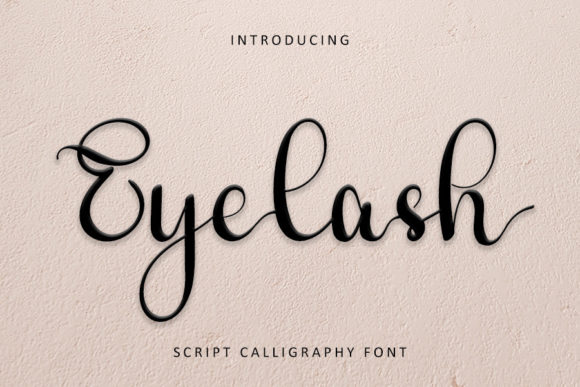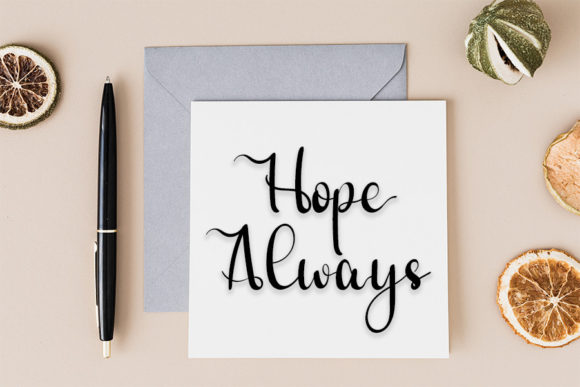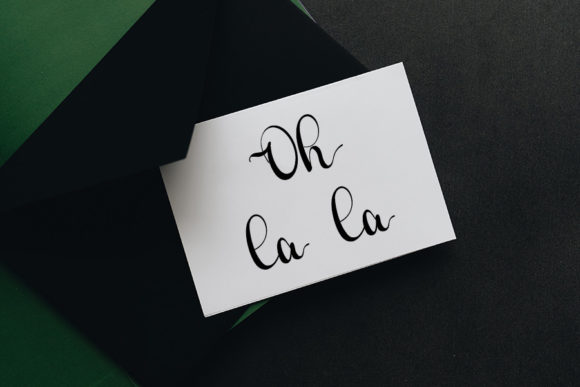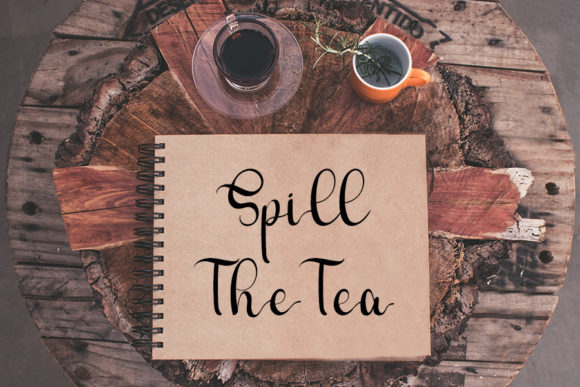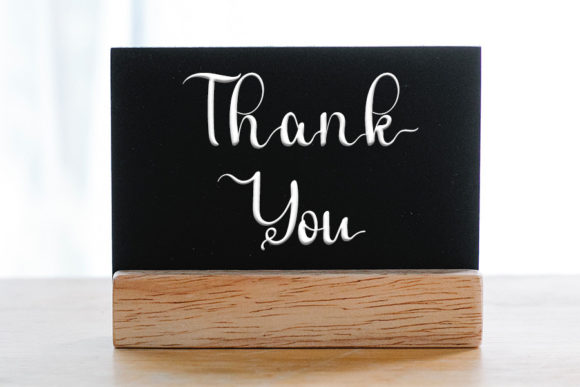
Eyelash Font
About Eyelash Font
“Eyelash” is introduced as a stylish handwritten font with a contemporary atmosphere and impeccable form. The font is inspired by timeless classic calligraphy, aiming to bring a sense of balance and variety to enhance the beauty of your projects. It is positioned as a typeface that blends a modern aesthetic with the elegance of classic calligraphy.
The contemporary atmosphere of “Eyelash” suggests a font that is well-suited for modern design projects. Its impeccable form indicates a high level of craftsmanship, emphasizing a refined and polished appearance. This makes it a suitable choice for applications where attention to detail and sophistication are crucial.
The inspiration from timeless classic calligraphy implies that “Eyelash” carries a sense of tradition and enduring beauty. This combination of classic influence and contemporary design creates a versatile font that can be applied to a variety of projects seeking a harmonious blend of the old and the new.
In summary, “Eyelash” is presented as a font that offers a stylish and contemporary take on classic calligraphy. Its balanced and varied design is crafted to enhance the beauty of diverse projects, making it a versatile choice for designers looking to infuse a touch of modern elegance into their typographic compositions.